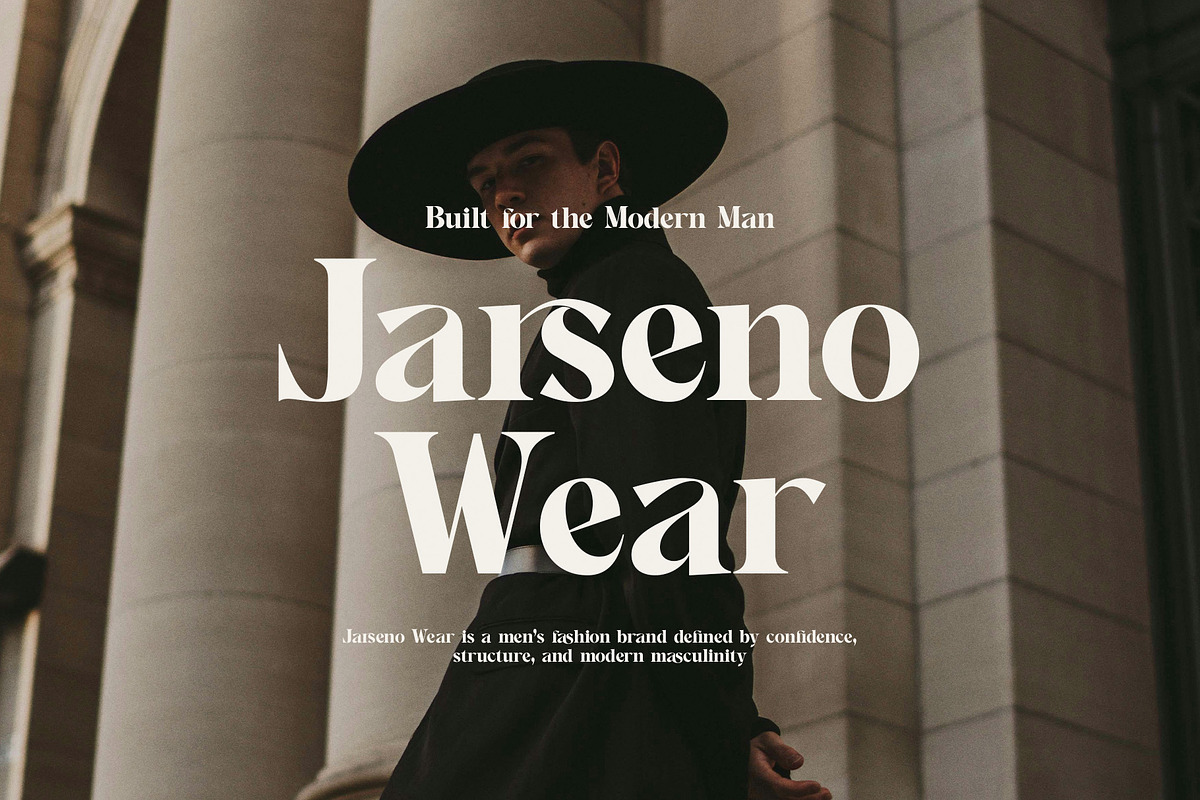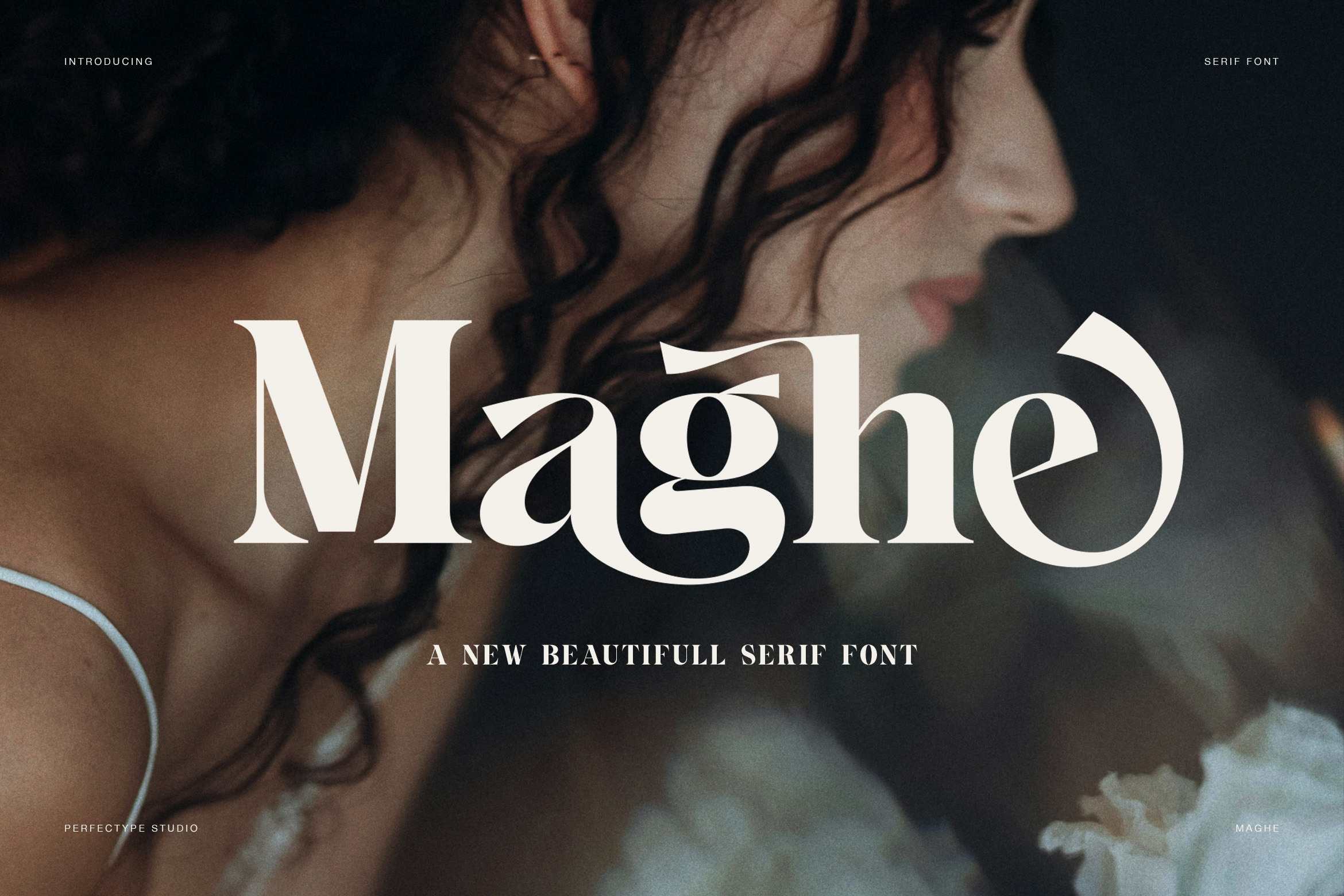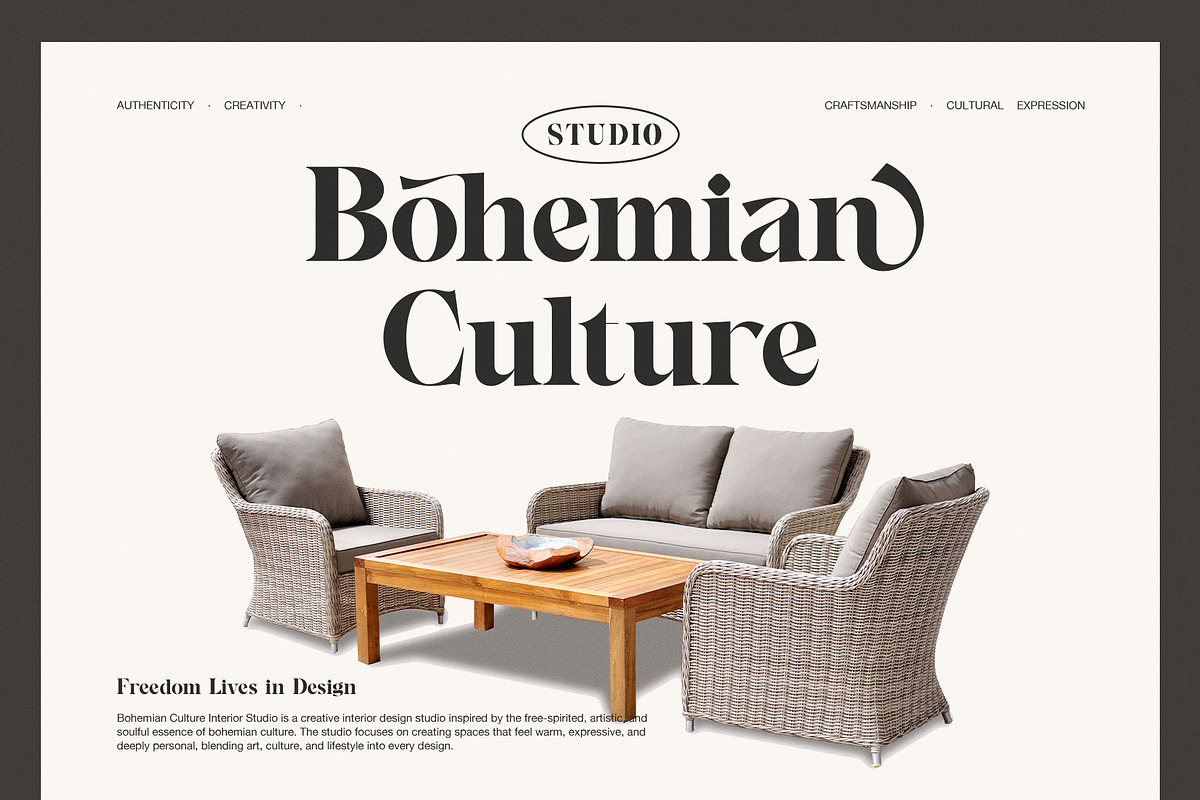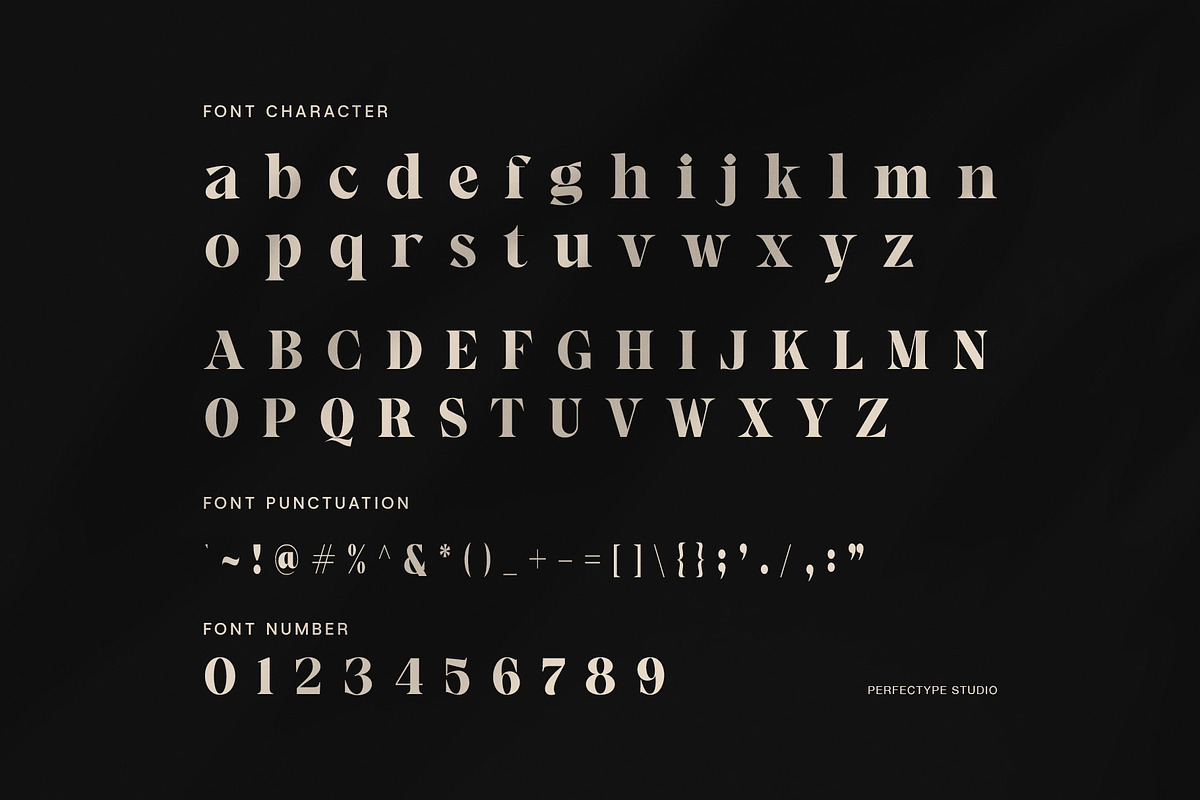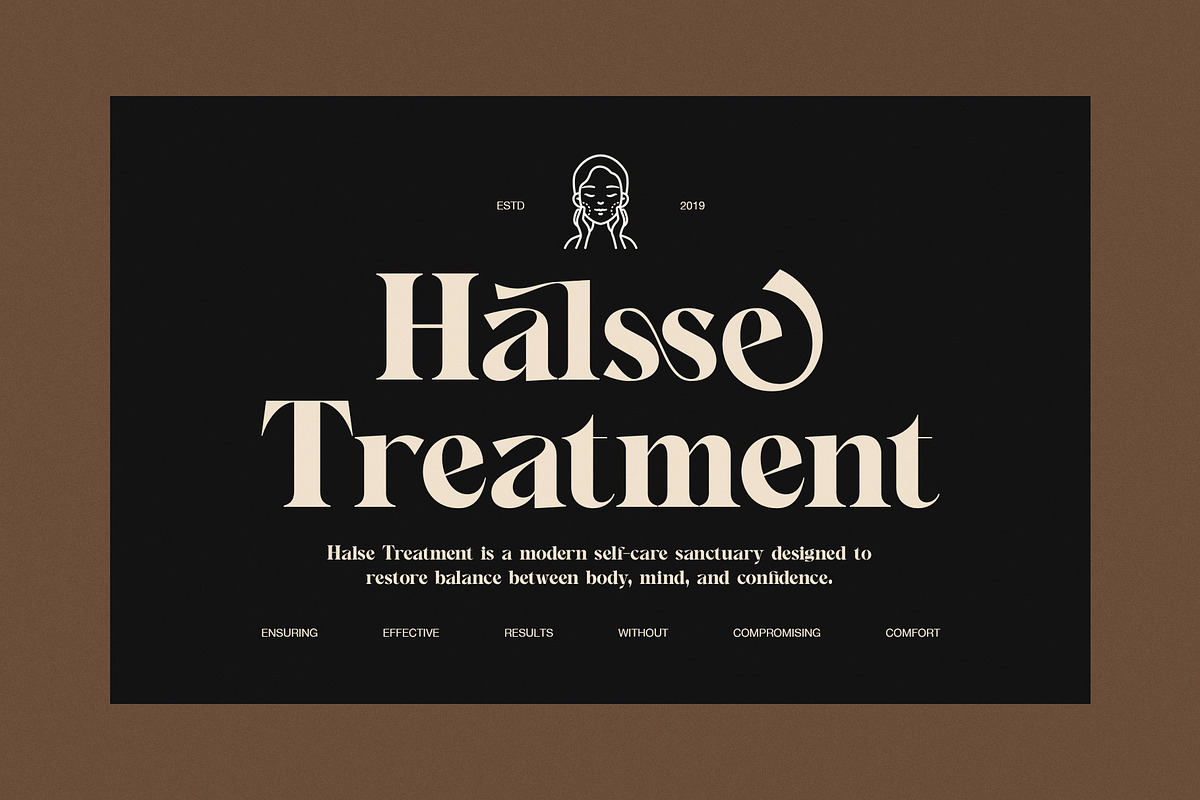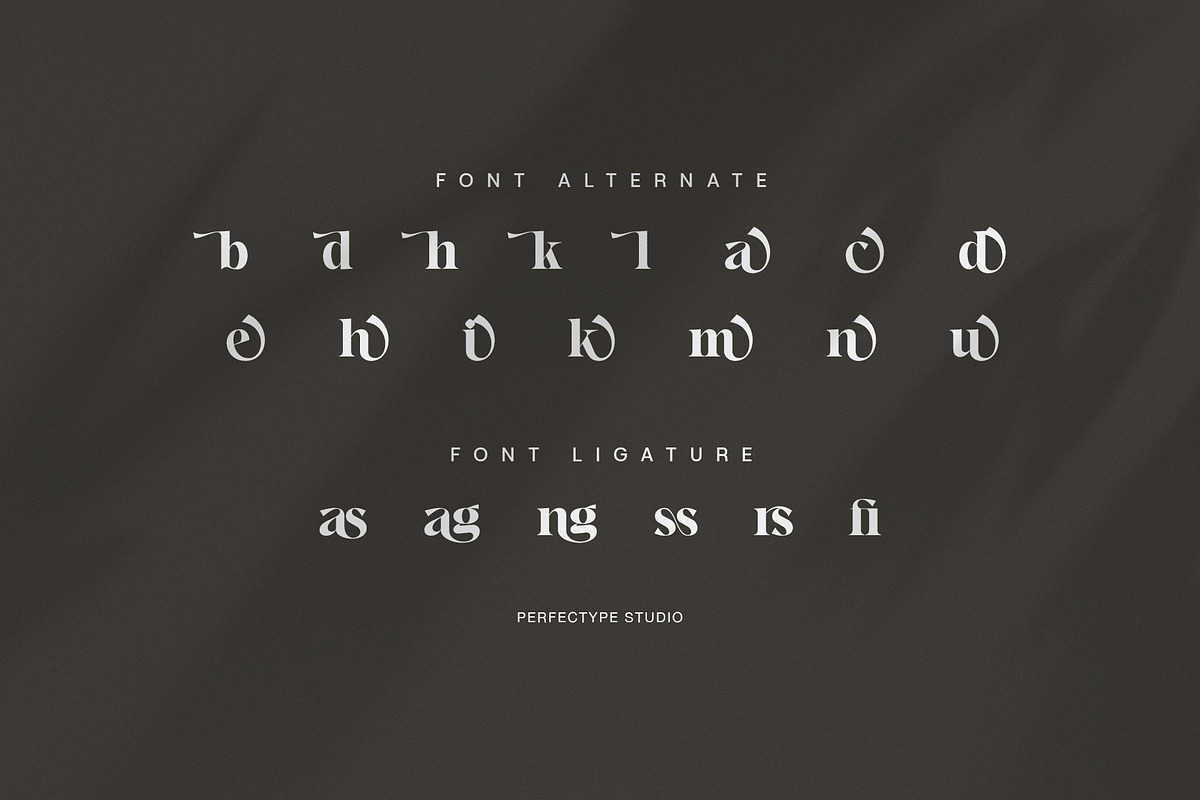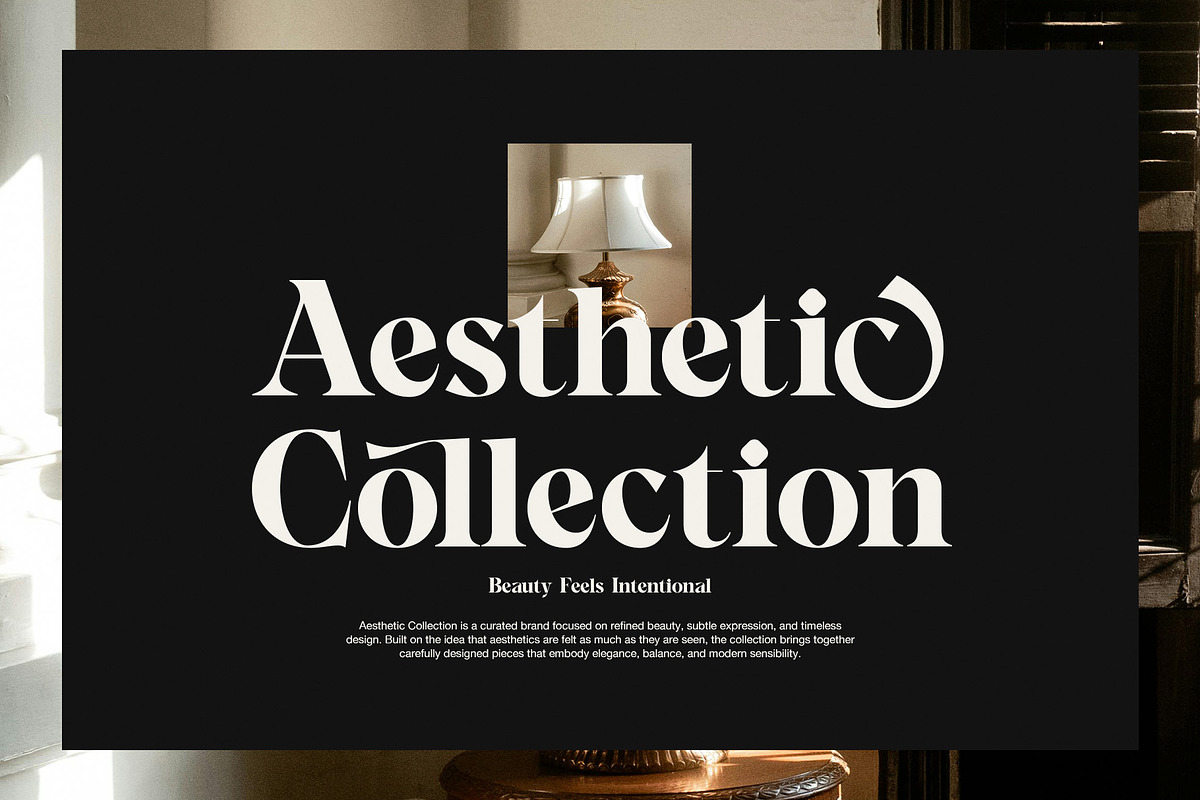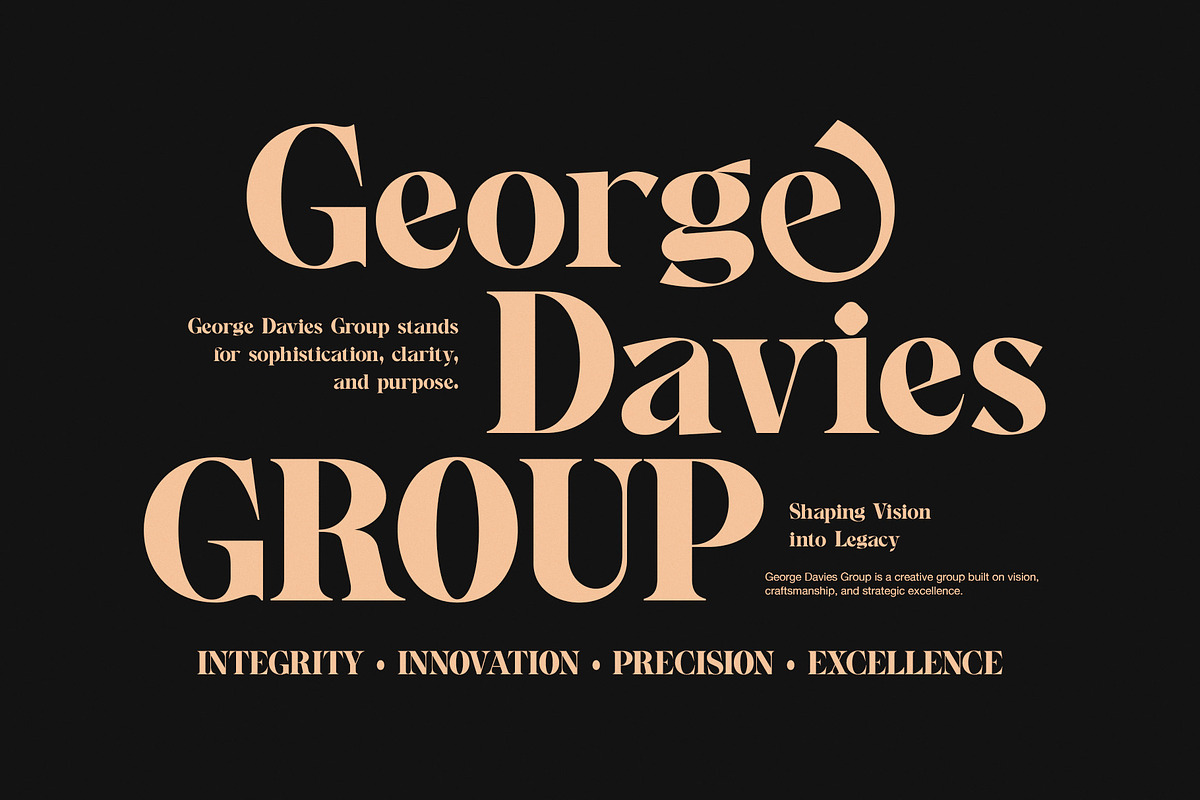
Maghe Elegant Modern Serif Font
Maghe is an elegant modern serif font created for designers who value clarity, beauty, and refined detail. From the first glance, Maghe feels confident, expressive, and timeless. Therefore, it works perfectly for premium branding, editorial design, and sophisticated visual storytelling.
This serif font combines classic structure with modern softness. As a result, each letterform feels balanced, stylish, and intentional. The high contrast strokes add elegance, while the smooth curves bring warmth and approachability. Moreover, the carefully shaped terminals and distinctive alternates give Maghe a unique personality that stands out without feeling excessive.
Because Maghe includes clean uppercase and readable lowercase characters, it performs beautifully in both headlines and supporting text. In addition, the generous spacing improves readability across digital and print layouts. Designers can rely on Maghe for magazines, fashion branding, luxury packaging, and lifestyle visuals.
Maghe also includes stylish alternates and subtle ligatures. These features allow designers to create expressive typography while maintaining consistency. Furthermore, the ligatures add natural flow, especially in branding and logo design. This makes Maghe suitable for modern brands that want elegance with character.
Another strength of Maghe is its versatility. While it feels luxurious, it remains highly usable. Therefore, it works well for wedding designs, beauty brands, interior studios, and premium product labels. At the same time, it fits editorial layouts, lookbooks, and high-end social media graphics.
Maghe pairs effortlessly with minimal sans fonts. Consequently, it supports strong hierarchy and visual harmony. Designers can easily build refined layouts without visual noise. In addition, the font maintains clarity at large sizes, making it ideal for titles and hero text.
Elegant modern serif design
High contrast strokes with smooth curves
Stylish alternates and ligatures
Clear readability for print and digital use
Perfect for branding, editorial, and luxury design
Overall, Maghe is a refined serif font that brings confidence, beauty, and timeless appeal to every design project.